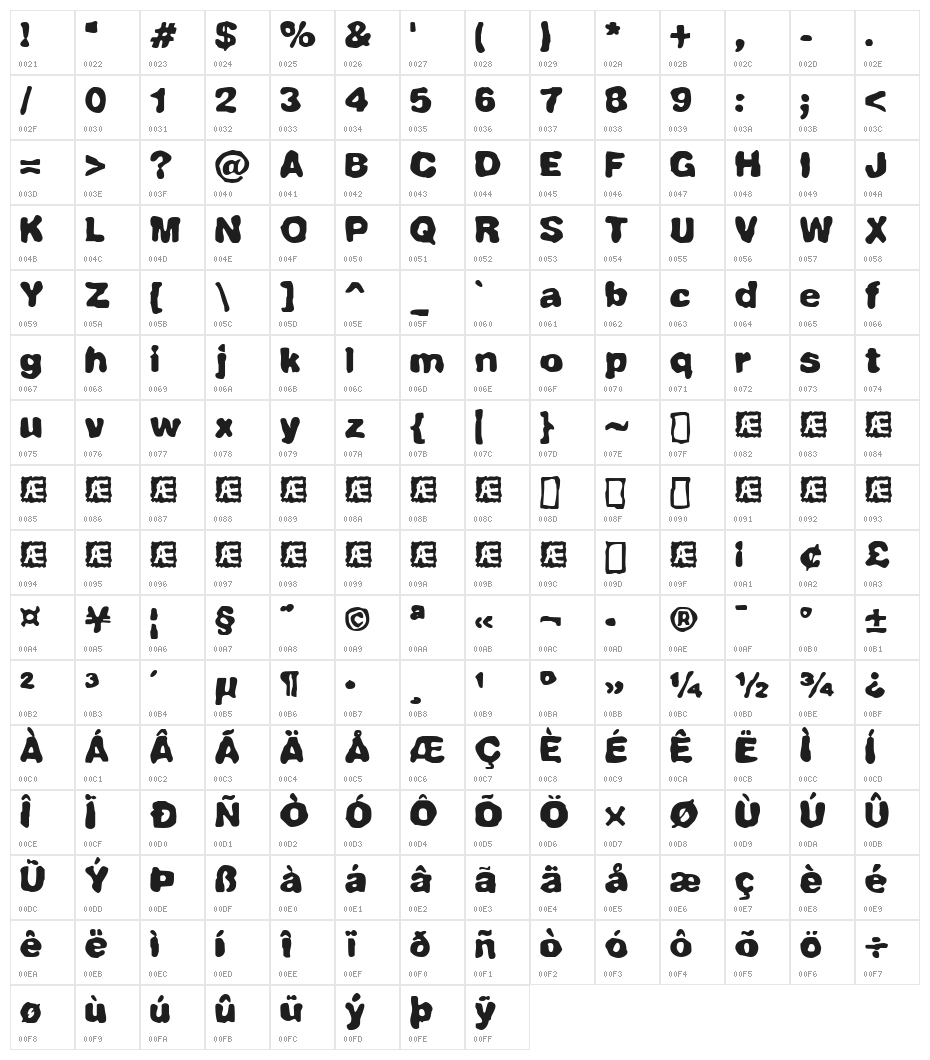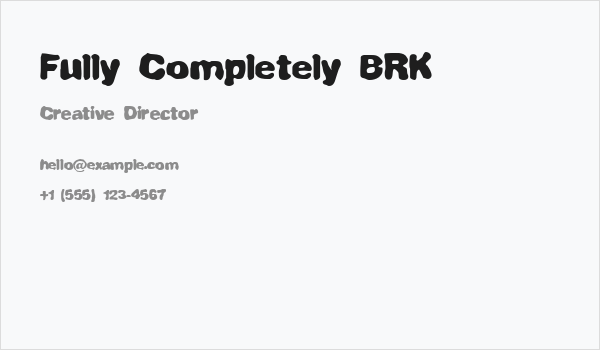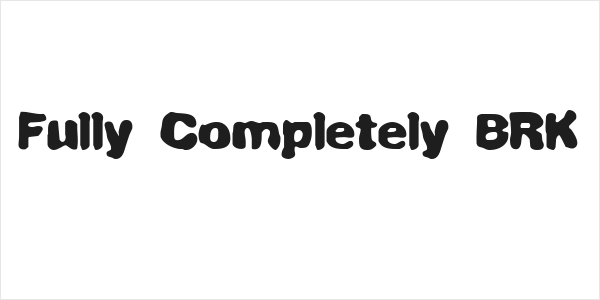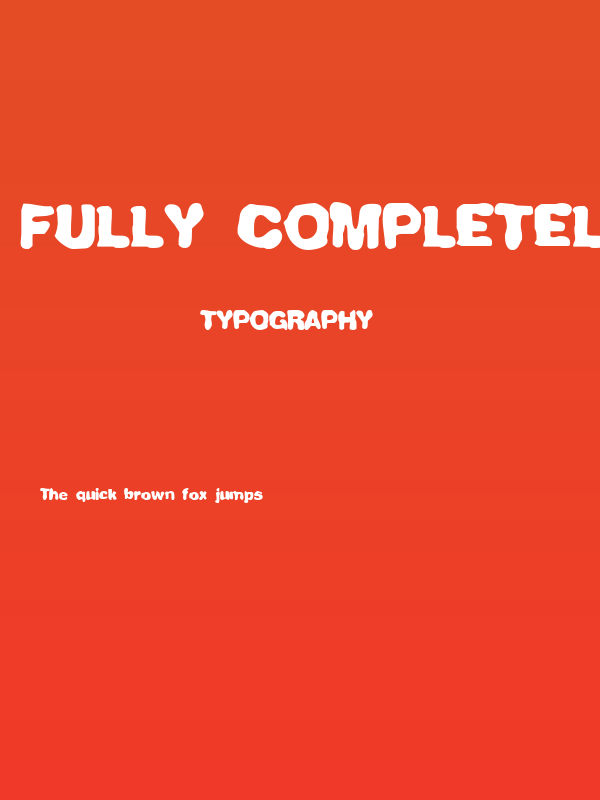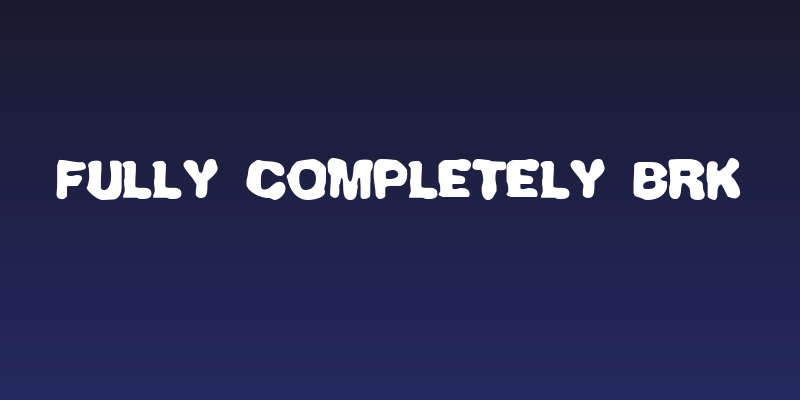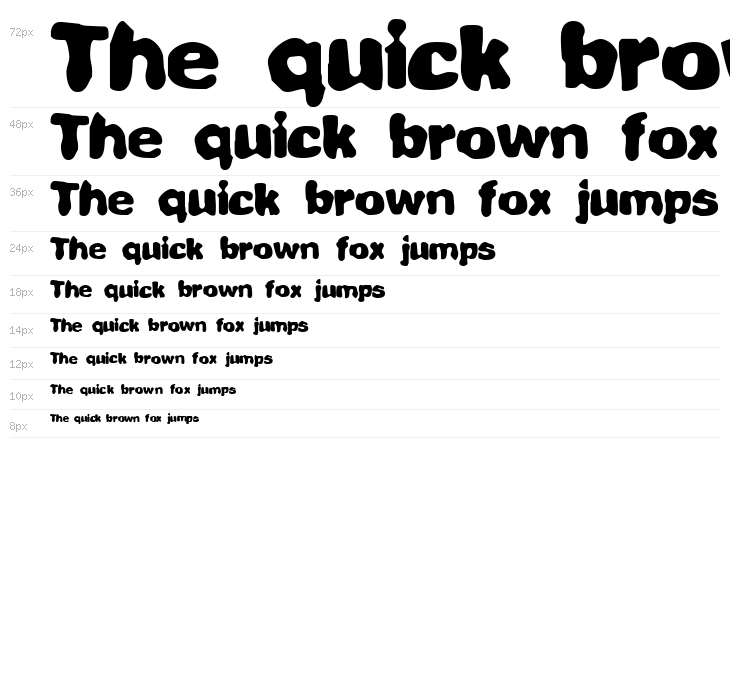
Fully Completely BRK Font
Fully Completely BRK Description
This font features a bold and playful design with thick, rounded strokes that give it a bubbly and informal appearance. The characters are heavily weighted, creating a strong visual impact, while the rounded edges add a sense of friendliness and approachability. The uppercase and lowercase letters maintain a consistent style, with the lowercase characters slightly smaller but equally bold. Numbers and special characters follow the same design principles, ensuring uniformity across all glyphs. The font's unique style makes it stand out, making it suitable for creative and fun projects.
Overall StylePlayful
Proposed ProjectsIdeal for children's books, playful branding, posters, and creative designs.